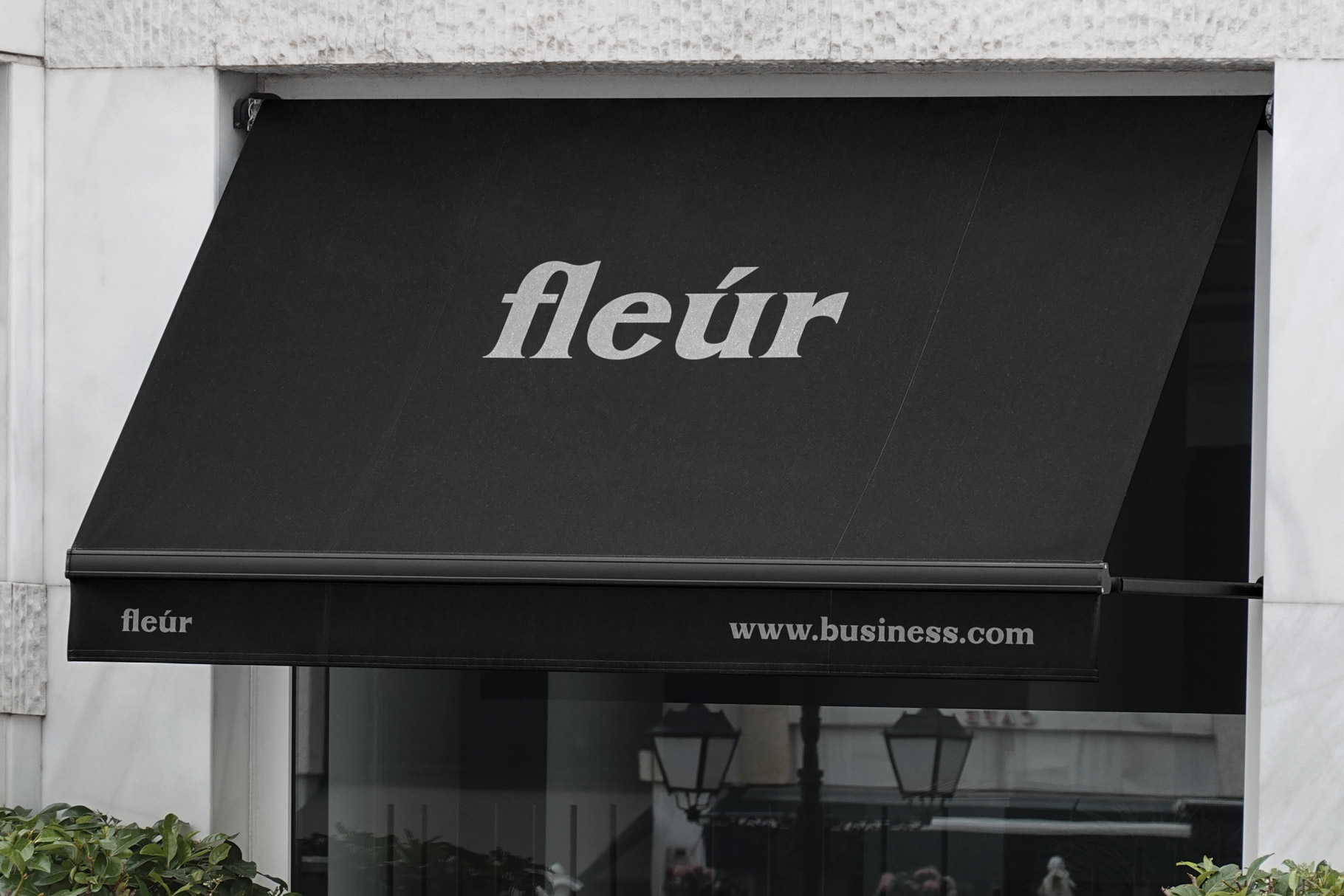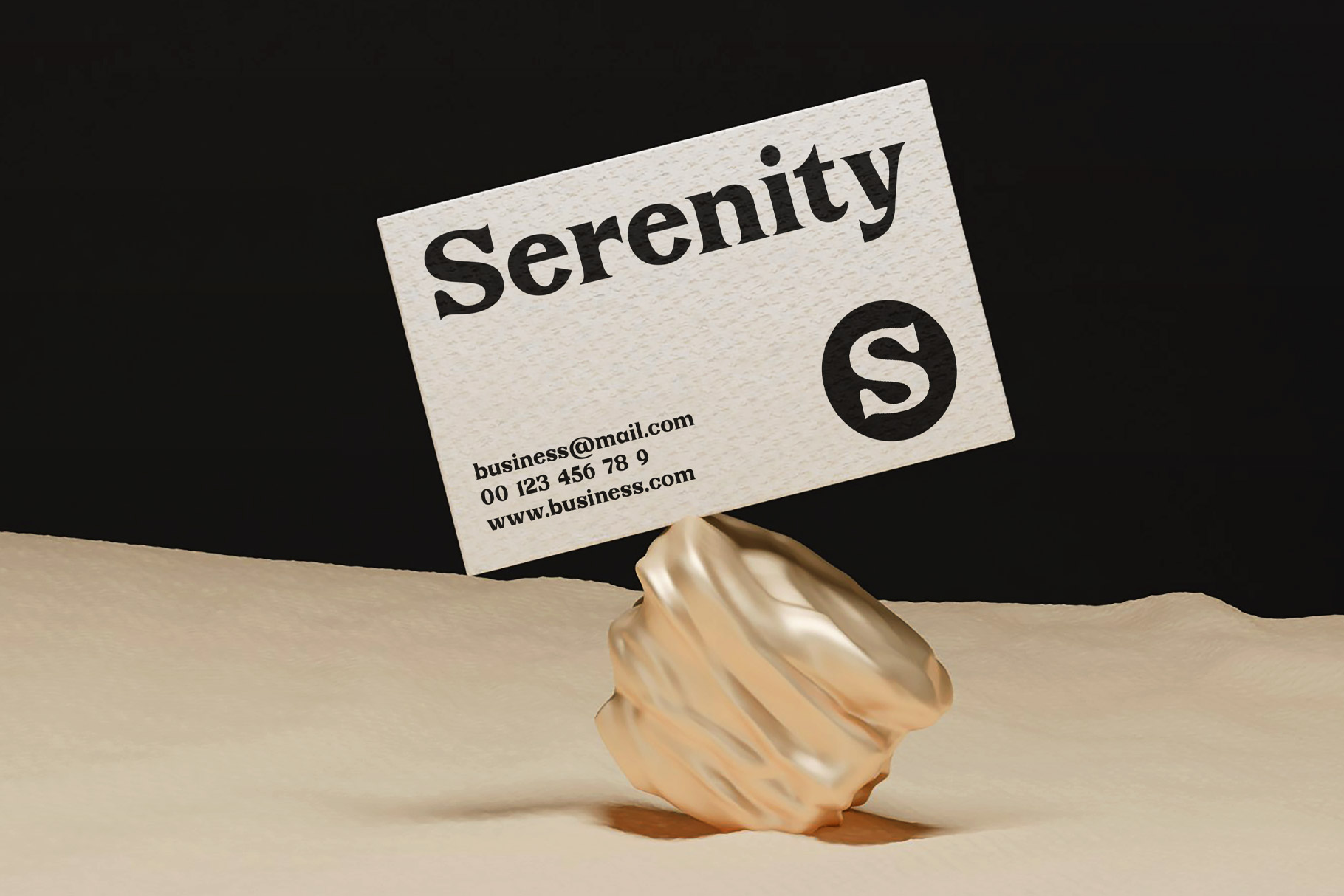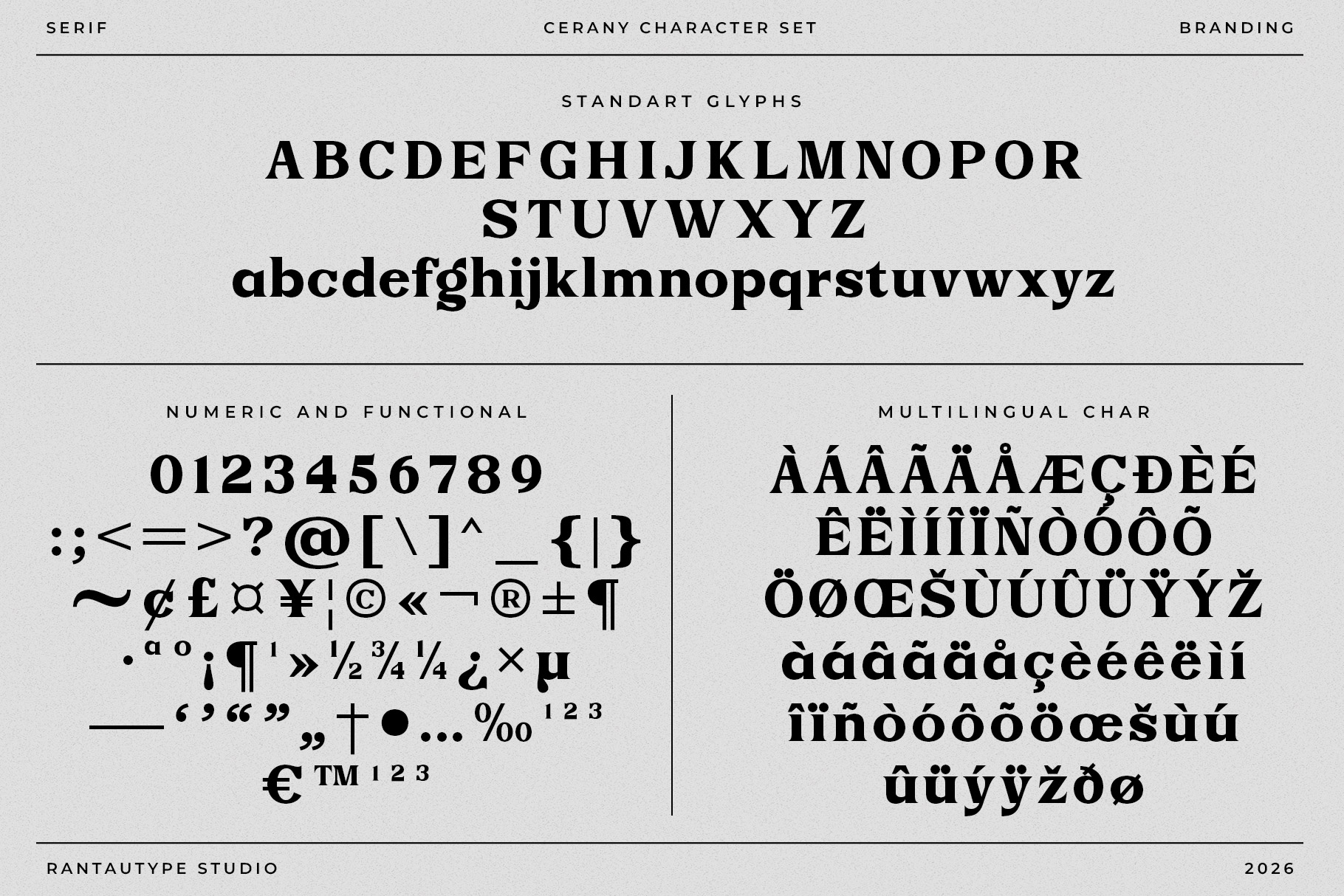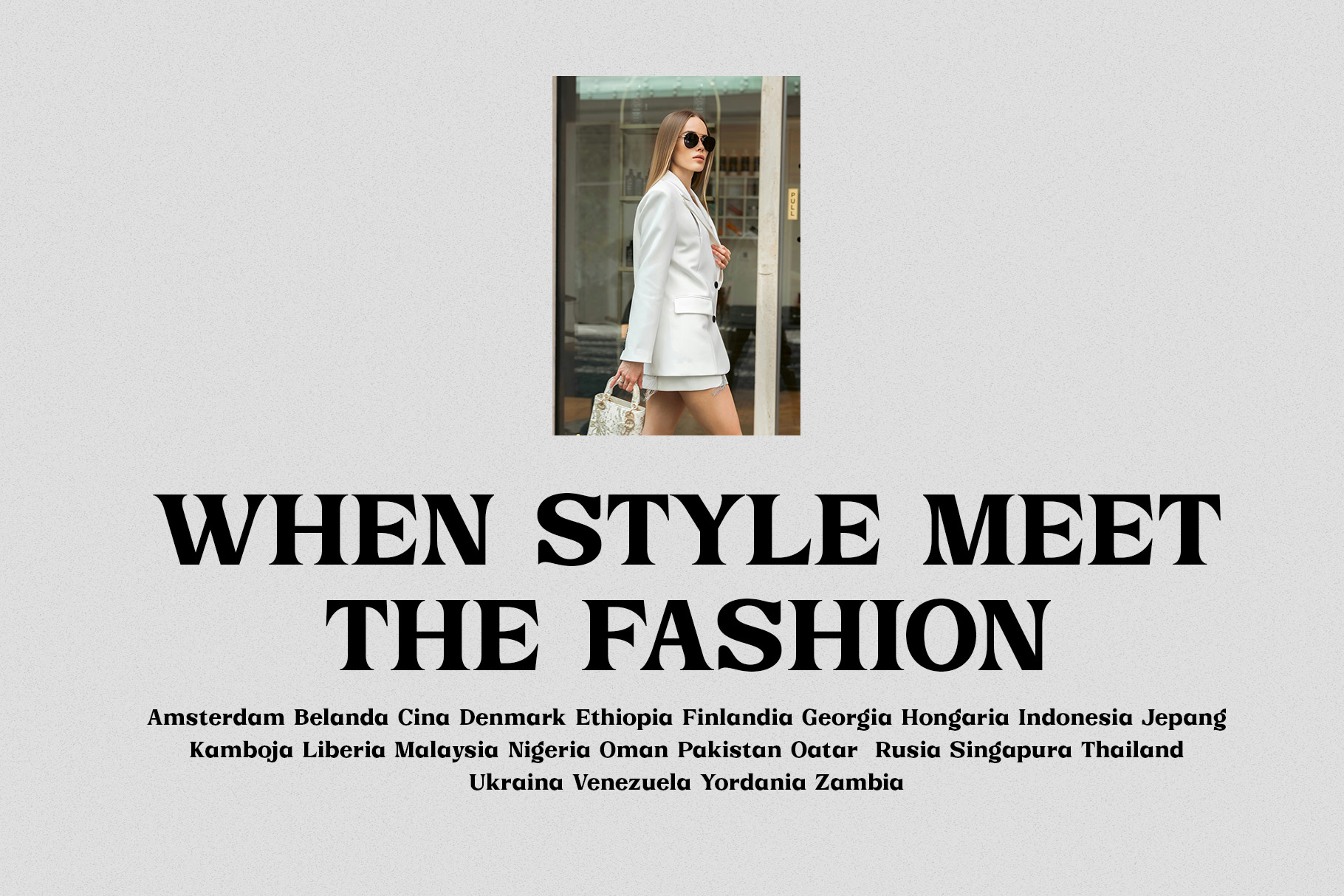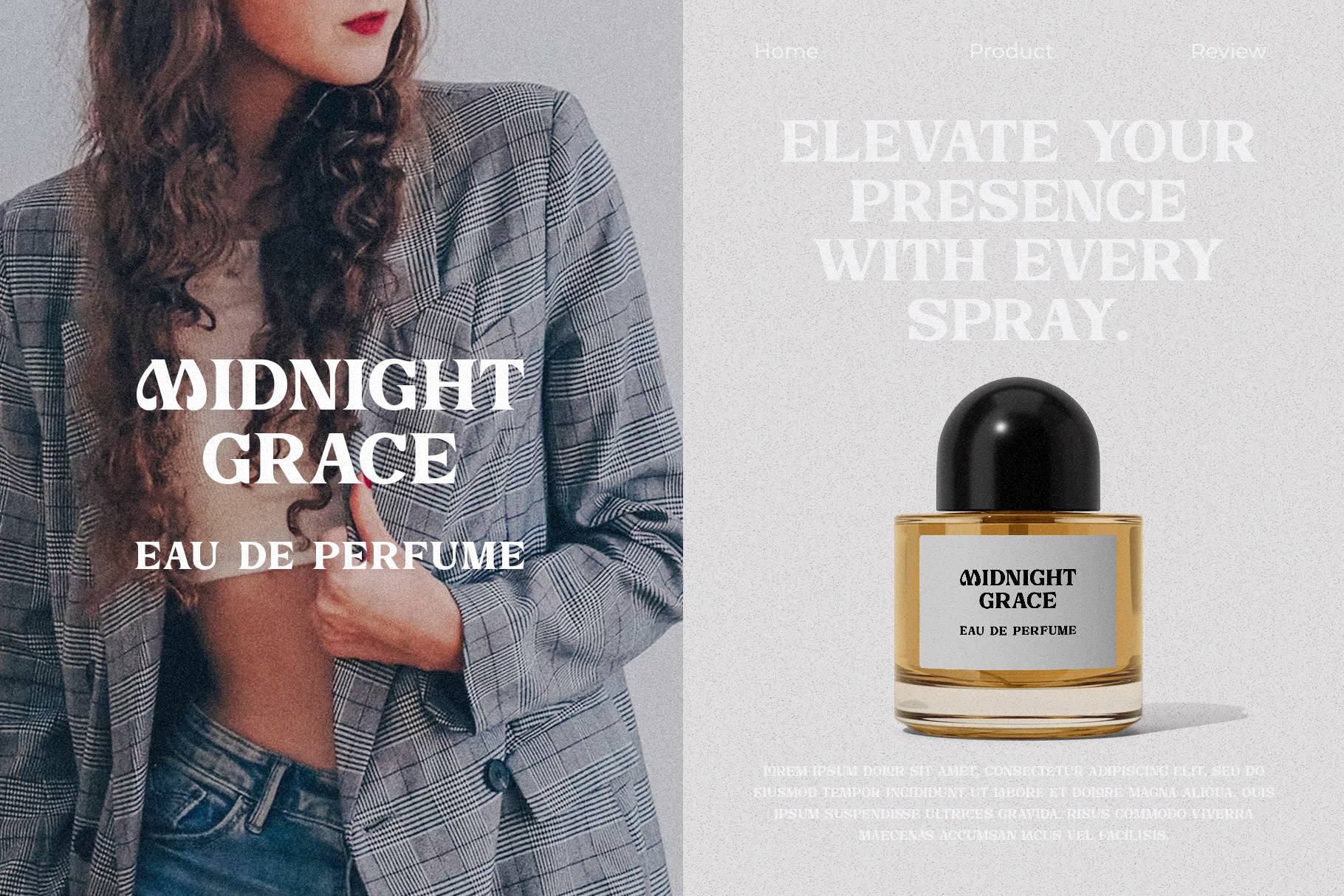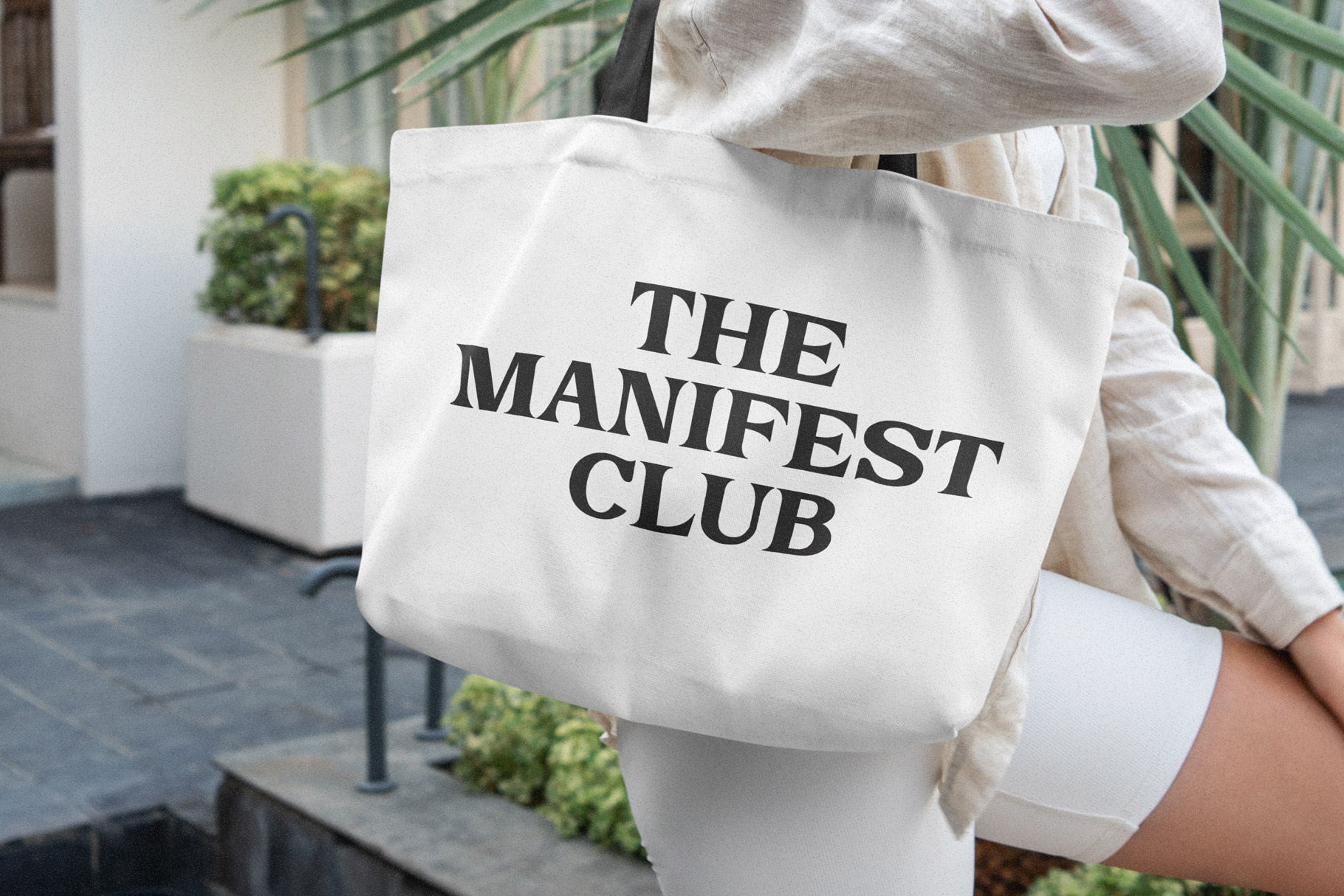
Cerany is a display serif typeface that blends timeless elegance with confident modernity, making it an exceptional choice for premium branding and editorial design. Defined by its high-contrast strokes, sculpted serifs, and dramatic proportions, this font commands attention while maintaining a refined and sophisticated personality.
Cerany a perfectly choice for any creative endeavor, creating, modern, lifestyle design such as logotype, title, cover, branding, invitations, wedding designs, display and magazine, social media posts, advertisements, printed quotes, product packaging, corporate brand, product designs, labels, photography, watermarks, special events and any other project with elegant touch.
Cerany Elegant Branding Font